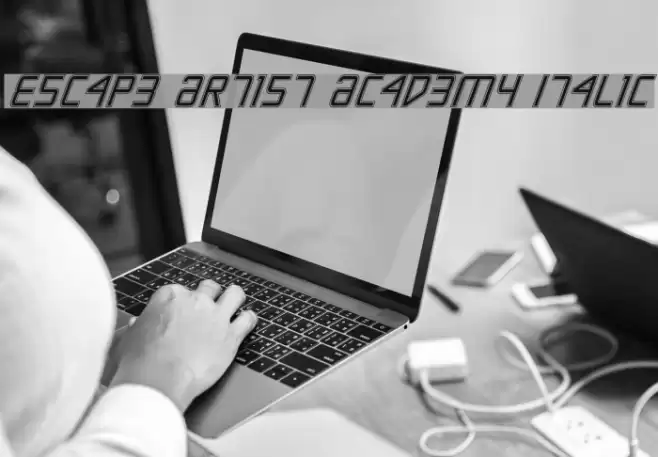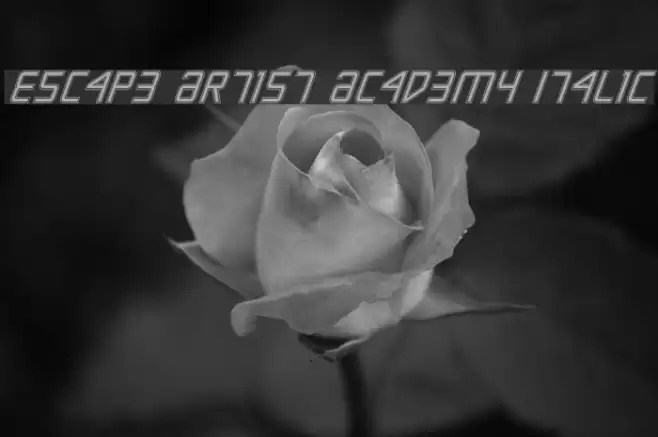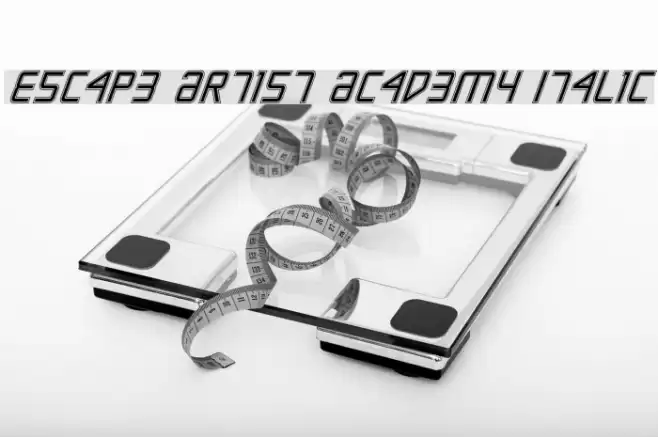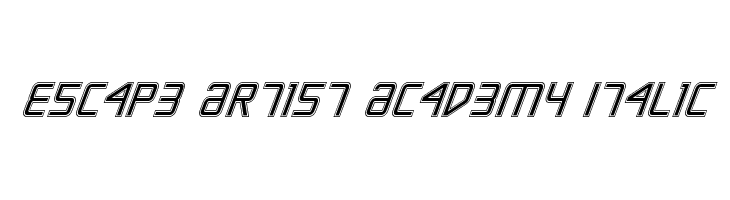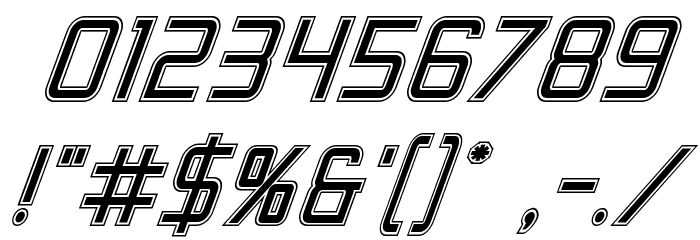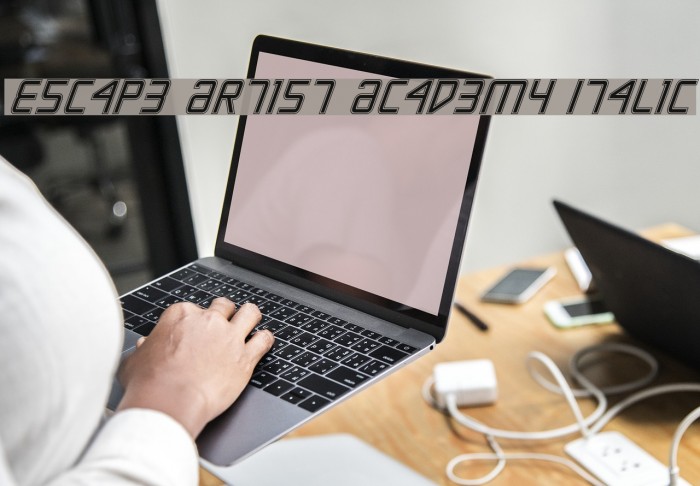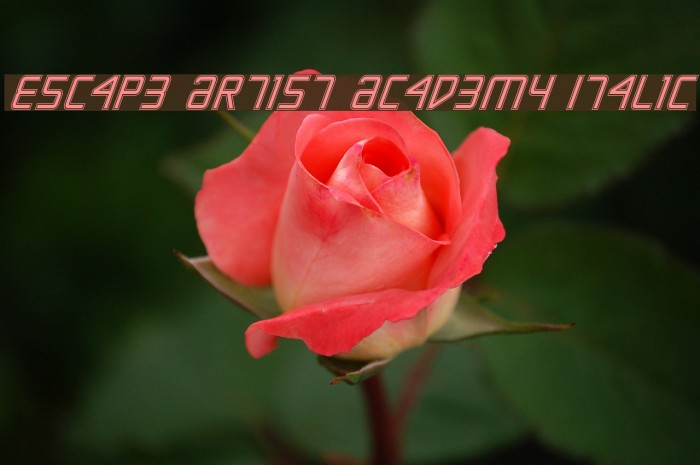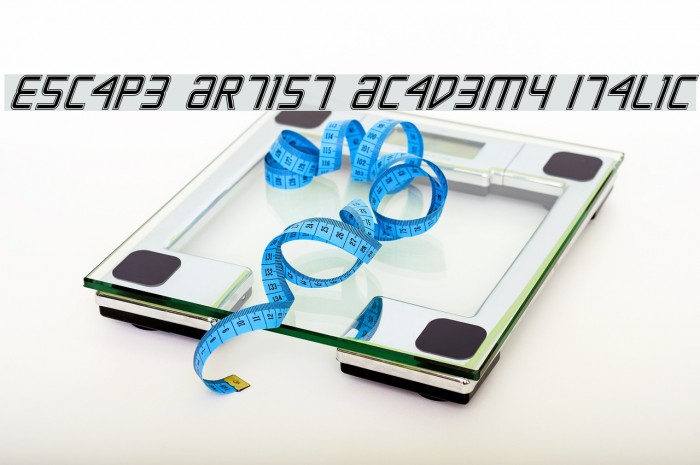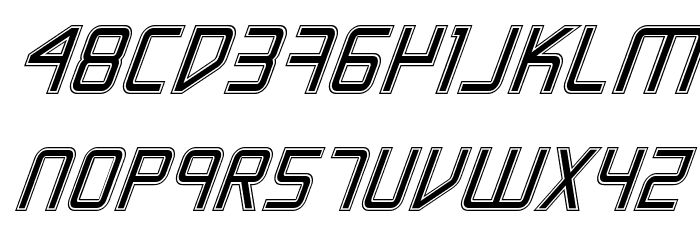
Escape Artist Academy Italic Font
Escape Artist Academy Italic Description
This font features a bold, italicized style with a futuristic and dynamic appearance. The characters are outlined with a double-line effect, giving them a three-dimensional look. The uppercase letters are angular and geometric, while the lowercase letters maintain a consistent style with slightly rounded edges. Numbers and special characters follow the same design principles, ensuring uniformity across all glyphs. The font's distinct style makes it suitable for projects that require a modern and edgy aesthetic.
A bold, italicized font with a futuristic, double-line outline style from Uncategorized fonts.
- Proposed Projects: Ideal for sci-fi themed designs, video game graphics, posters, and branding that requires a modern and dynamic look.